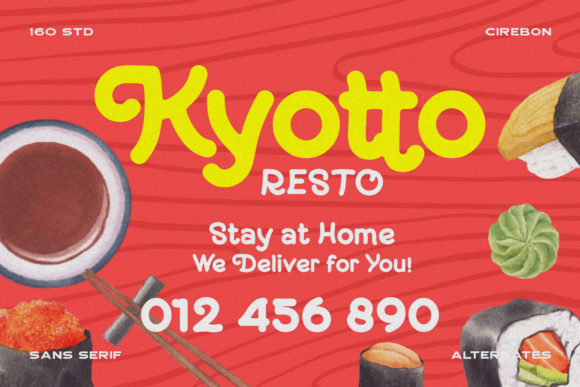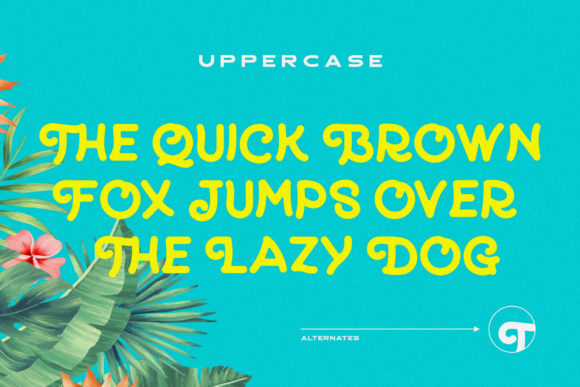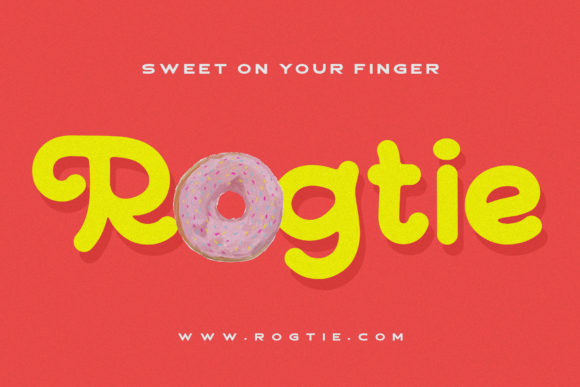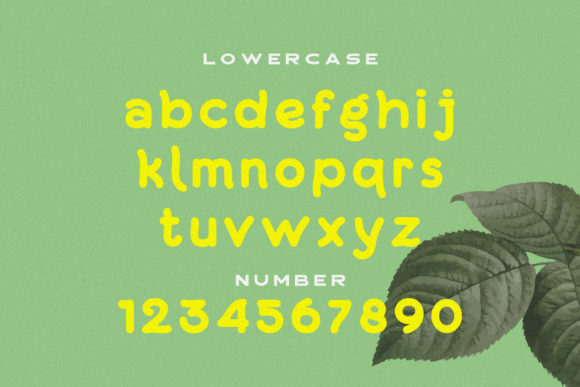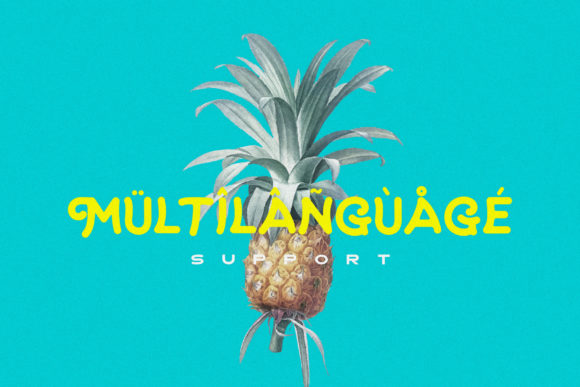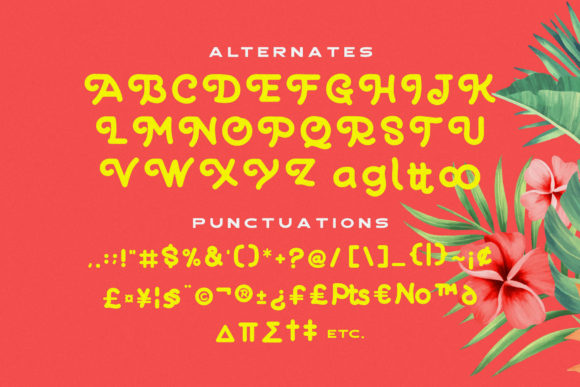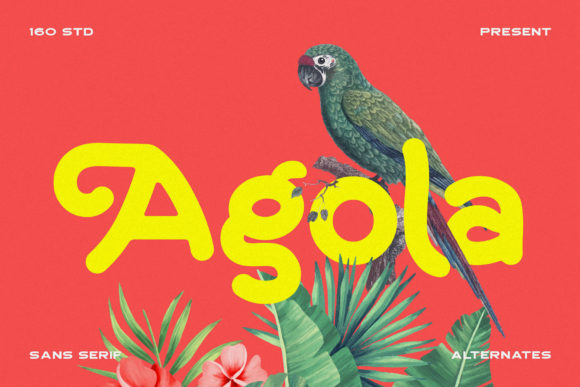
Introducing Agola Font: A Cute and Retro Display Font for Your Designs
Are you looking for a font that can add a touch of magic to your designs? Look no further than Agola Font, a cute and retro-looking display font that is sure to transport your designs to a whimsical world. With its modern yet playful style, Agola Font is perfect for designers and crafters who want to add a dash of personality to their work.
What Makes Agola Font Special?
Agola Font is a unique and charming font that boasts a modern yet retro aesthetic. Its whimsical style is reminiscent of a bygone era, while its clean lines and simple shapes ensure that it remains highly legible. Whether you’re designing a logo, a poster, or a digital graphic, Agola Font is sure to add a touch of personality and flair to your work.
One of the standout features of Agola Font is that it is PUA (Private Use Area) encoded. This means that you can access all glyphs and swashes with ease, giving you complete creative control over your designs. With PUA encoding, you can easily insert special characters, ligatures, and other unique features that will take your designs to the next level.
Agola Font is a versatile font that is perfect for a wide range of design applications. Whether you’re a professional designer or a crafter looking to add a personal touch to your work, Agola Font is a great choice. Its playful style makes it ideal for:
• Logos and branding
• Posters and flyers
• Digital graphics and social media assets
• Handmade crafts and DIY projects
• Wedding and event invitations
Why Choose Agola Font?
There are many fonts to choose from, but Agola Font stands out from the crowd. Here are just a few reasons why:
• Unique and charming design: Agola Font has a one-of-a-kind design that is sure to grab attention.
• Highly legible: Despite its playful style, Agola Font remains highly legible, even at small sizes.
• PUA encoded: With PUA encoding, you can access all glyphs and swashes with ease.
• Versatile: Agola Font is perfect for a wide range of design applications.
Tips and Tricks for Using Agola Font
Here are a few tips and tricks to help you get the most out of Agola Font:
• Pair with a sans-serif font: Agola Font looks great paired with a clean sans-serif font.
• Use contrasting colors: Create visual interest by using contrasting colors with Agola Font.
• Experiment with swashes: Take advantage of Agola Font’s PUA encoding to add unique swashes and glyphs to your designs.
Agola Font is a unique and charming display font that is perfect for designers and crafters looking to add a touch of personality to their work. With its modern yet retro aesthetic, PUA encoding, and versatility, Agola Font is a great choice for a wide range of design applications. Whether you’re designing a logo, a poster, or a digital graphic, Agola Font is sure to transport your designs to a magical world.